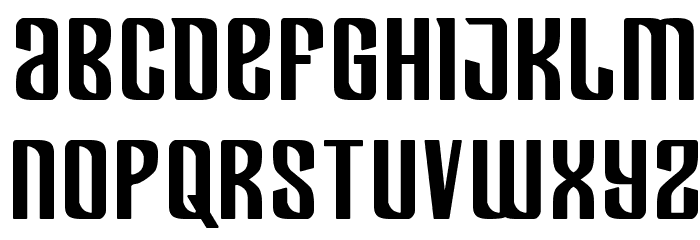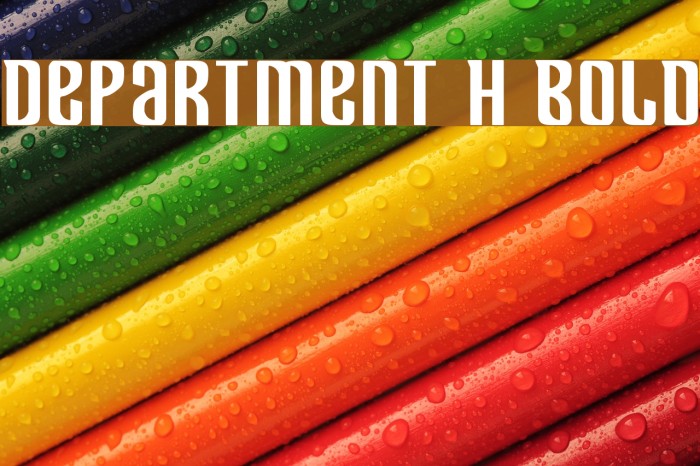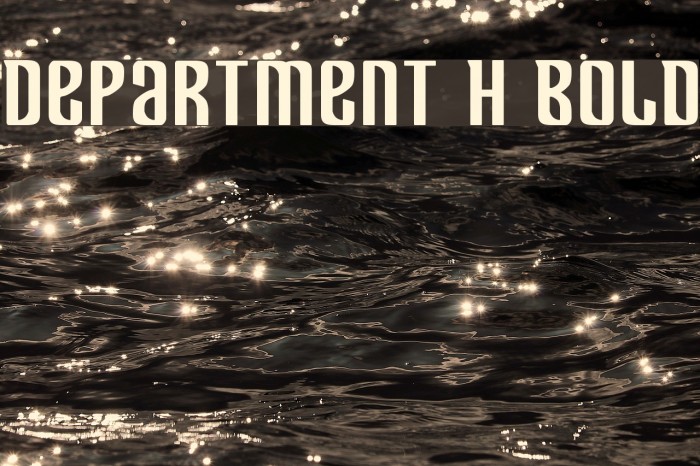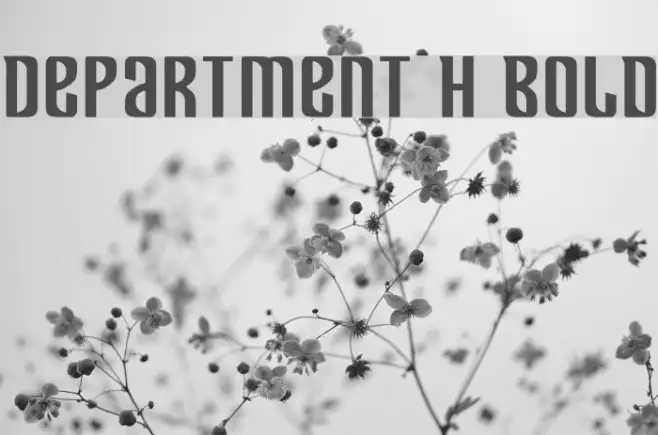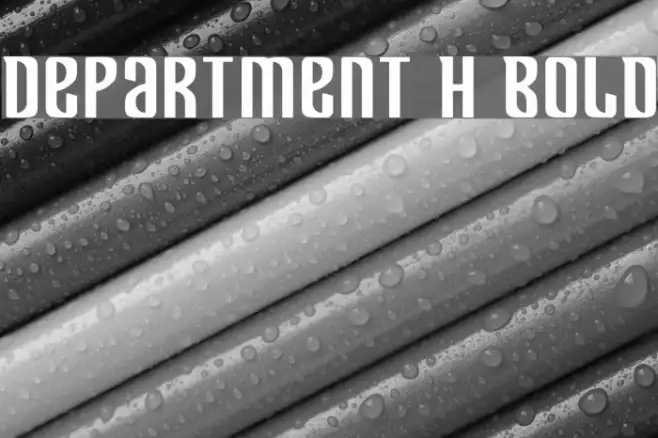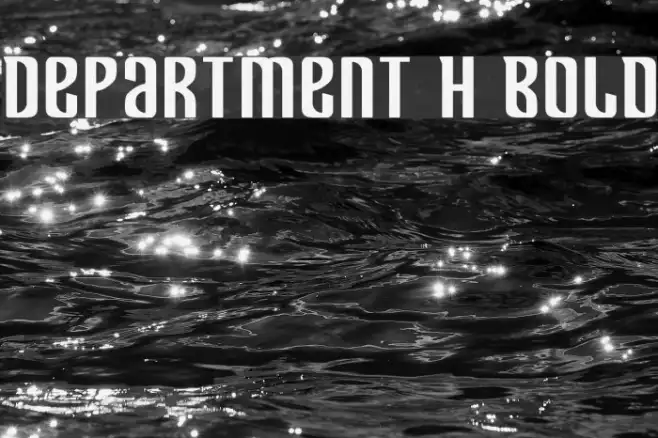
Department H Bold Font
This font features a bold and impactful design with a modern and geometric aesthetic. The characters are constructed with a uniform stroke width, giving them a strong and consistent appearance. The uppercase letters are particularly striking, with a tall and narrow form that emphasizes verticality. The lowercase letters maintain the same boldness, ensuring readability and cohesion across different text sizes. The numerals are clear and distinct, matching the overall style of the alphabet. Special characters are included, providing versatility for various design needs. The font's clean lines and structured form make it suitable for projects that require a contemporary and assertive look.
A bold, geometric font with a modern and impactful design.
- Proposed Projects: Ideal for branding, headlines, posters, and signage where a strong visual presence is needed.